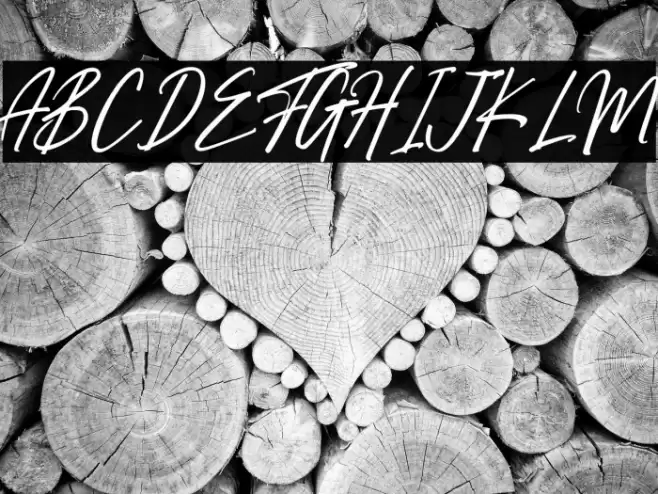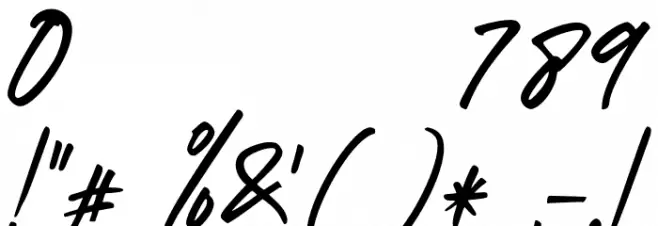
Right Female Font
Right Female Description
This font features a dynamic and fluid handwritten style, characterized by its elegant and flowing script. The letters are connected in a cursive manner, giving it a natural and personal touch. The uppercase letters maintain a consistent height, while the lowercase letters exhibit a slight slant, enhancing the handwritten feel. The numerals and special characters are crafted with the same fluidity, ensuring a cohesive appearance across all glyphs. The strokes are moderately thick, providing a balanced contrast that is neither too bold nor too light. This font exudes a sense of sophistication and creativity, making it suitable for projects that require a personal and artistic touch.
A fluid and elegant handwritten script font with a personal touch from Uncategorized fonts.
- Font: Right Female
- Proposed Projects: Ideal for wedding invitations, personal branding, greeting cards, and artistic projects.
- Overall Style: Elegant, Artistic
- Use Case: Logos, Invitations, Personal Branding